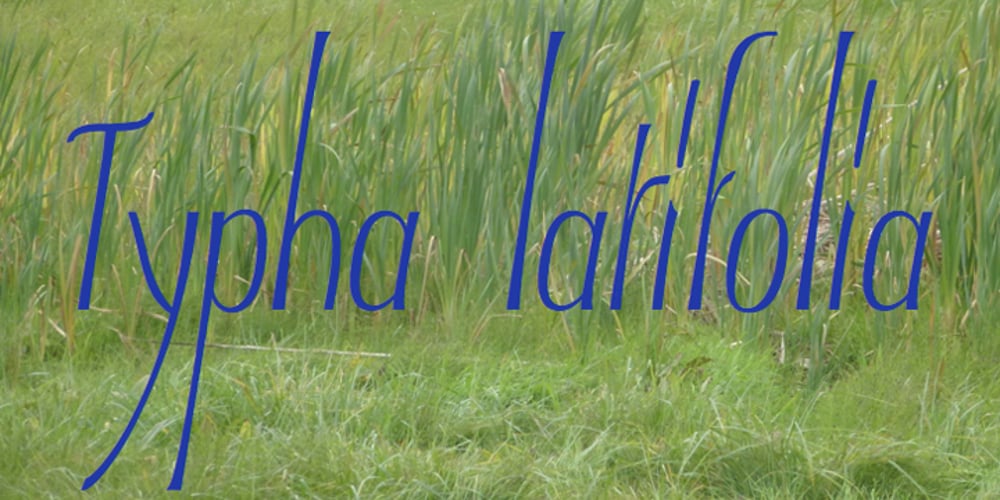
Typha Latifolia
Typha Latifolia font
Typha Latifolia Font Family was designed by Jean Boyault and published by JBFoundry. Typha Latifolia contains 8 styles and family package options. Typha Latifolia is a plant of the swamps from the Northern Hemisphere. It is characterized by its high rangy leaves. Typha Latifolia is also a font family. It is characterized by the height of the ascenders and the descenders. Numerous ornamental variations complete medium and bold versions.